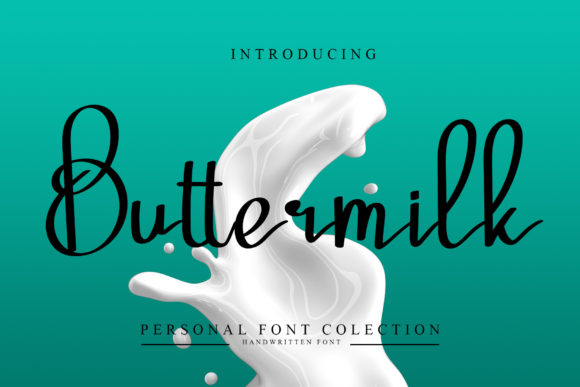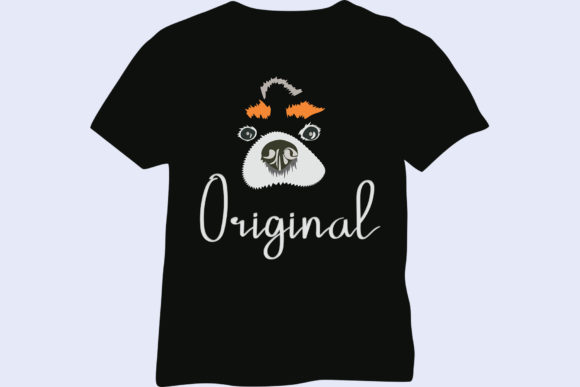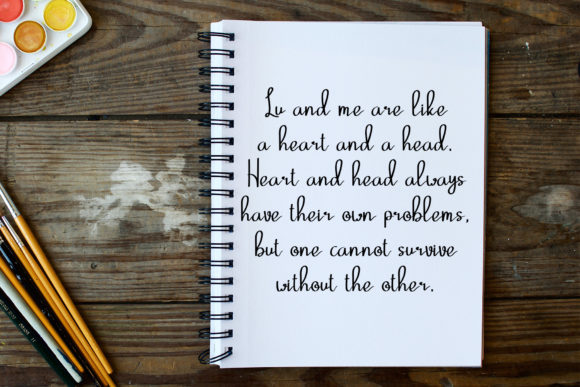
About Buttermilk Font
Buttermilk is a chic and refined script font that exudes sophistication and elegance. With its stylish alternates and ligatures, this font is the perfect choice for any project.
The graceful curves and flowing lines of Buttermilk give it a sense of timeless beauty. Whether you’re designing a logo for a high-end brand, creating elegant wedding invitations, or crafting exquisite packaging, this font will elevate your project to new levels of sophistication.
Its stylish alternates and ligatures provide versatility and uniqueness, allowing you to create custom letter combinations and flourishes that set your work apart. Every character is meticulously crafted to ensure a harmonious and visually pleasing result.
Immerse your designs in the refined ambiance that Buttermilk creates. Its elegant presence transforms ordinary text into a statement of class and taste. Whether used in print or digital mediums, this font shines with inherent beauty.
Embrace the sophistication of Buttermilk and let it enhance your projects with its refined charm. Whether you’re working on a fashion editorial, creating upscale event stationery, or designing luxury brand collateral, this font will be the perfect match for your vision.
Indulge in the allure of Buttermilk and watch as your designs radiate sophistication and elegance. Let this font be your partner in creating stunning and memorable creations that leave a lasting impression.